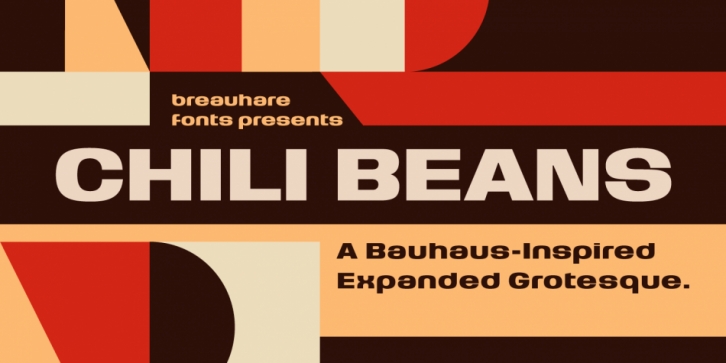
Take a peculiar name, an unorthodox but happy pairing of upper and lowercases, mix them all together and you’ll get Chili Beans, the essential ingredient to spice up any project you are working on!
Chili Beans breaks typographic rules: its capitals evoke traditional early 20th century styling and strength. Lowercase displays a softer, more warm and friendly flavor that points to a Bauhaus aesthetic. But for some strange reason they work so well together! Therein lies the mystique of this font.
Overall it isn’t strictly uniform in stroke but shows some variation of color.
The sofa poster includes a cameo appearance by breauhare’s own popular Daddy’s Hand font.
Chili Beans has that nostalgic flavor of the 1960s & 1970s, yet it conveys a modern look that lends itself to sports, fashion, lifestyle and more.
Among OpenType features are Stylistic Alternates, Stylistic Sets, Ligatures, Fractions, & Case-sensitive forms.
Extended support for Western, Central, and Eastern European languages is included. Use it for headlines, subheads, branding, editorial, packaging, and logos!